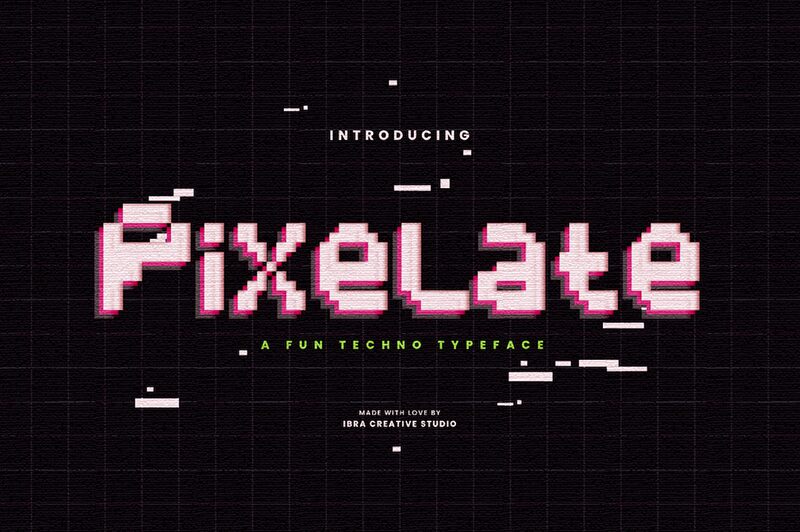
Pixelate font by Ibra Creative Studio is a bold bitmap font with a pixelated style and retro, geometric, blocky look. Its digital feel captivates its viewers with an attention-grabbing appearance and nostalgic charm. This free typeface can be featured in color for greater excitement or used in black for a static presentation.
Use Pixelate for games, album covers, video game covers, posters, T-shirts, advertisements, wrapping paper designs as well as branding and packaging designs of mountain bikes and high energy drinks. Explore your options with its letters which can be mixed and matched to decorate stationery items like notebook/agenda covers or invitations.
Pixelate